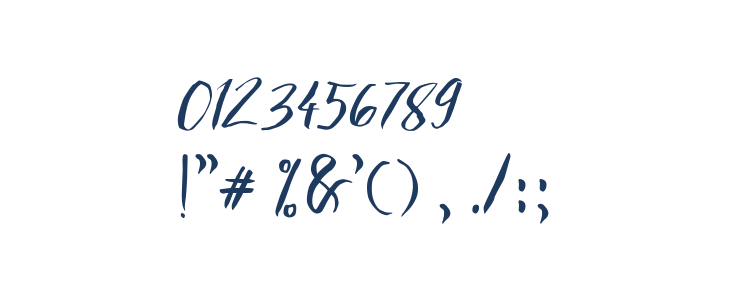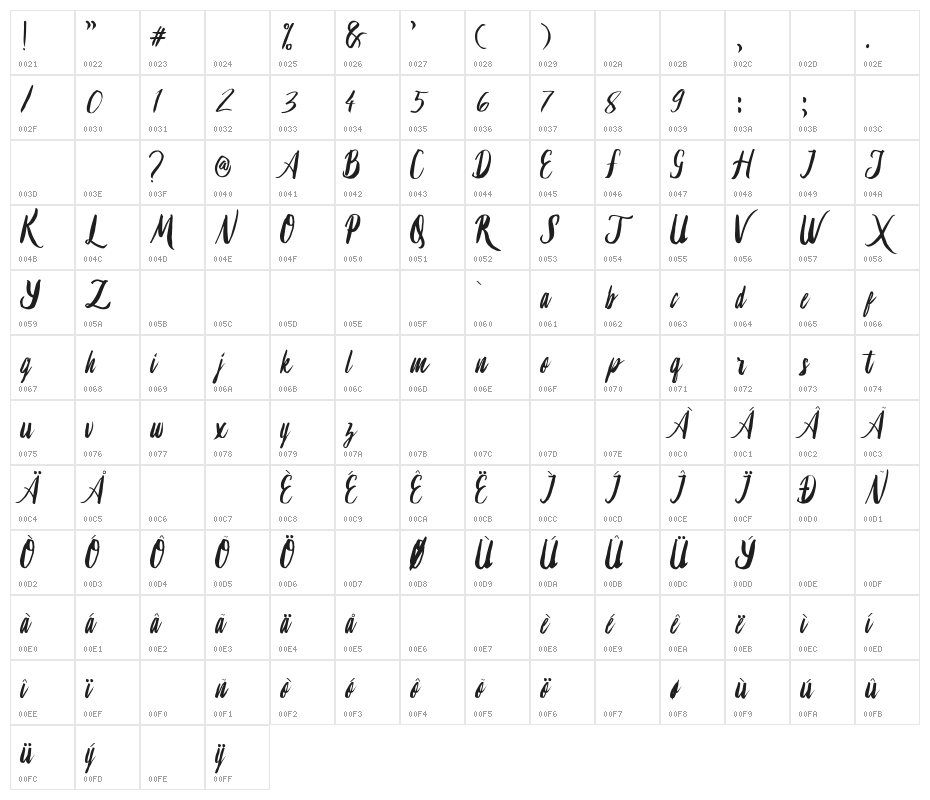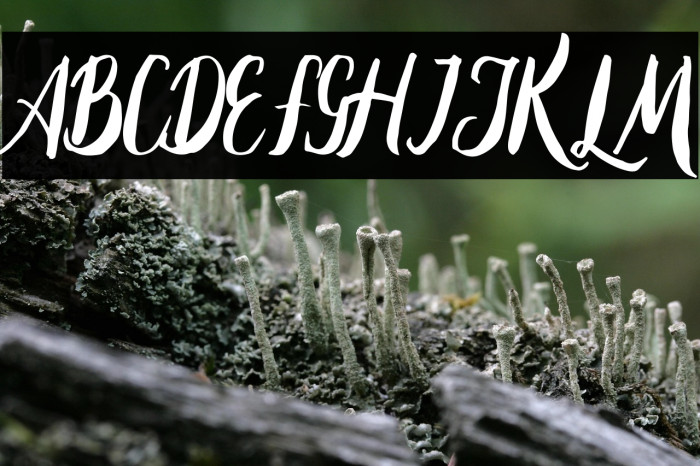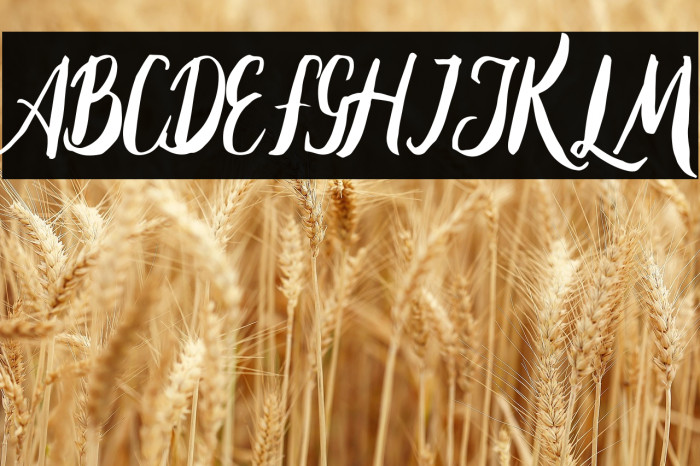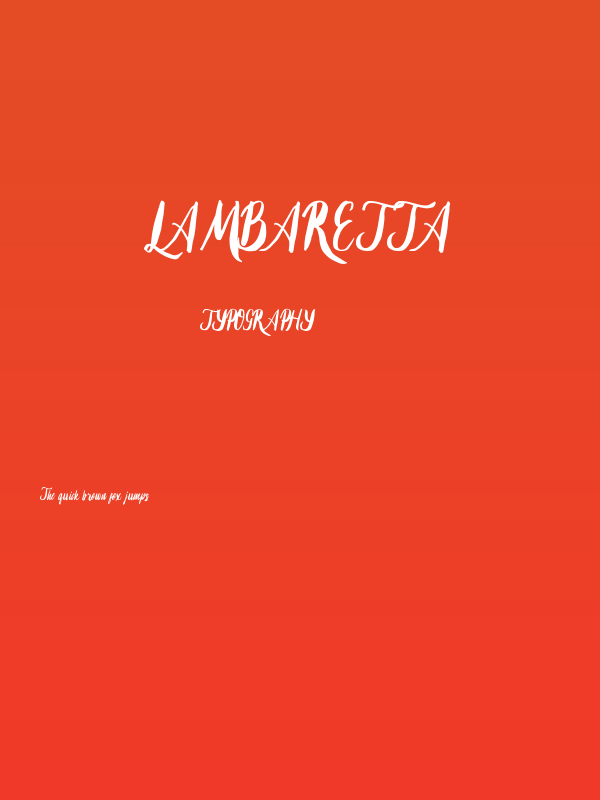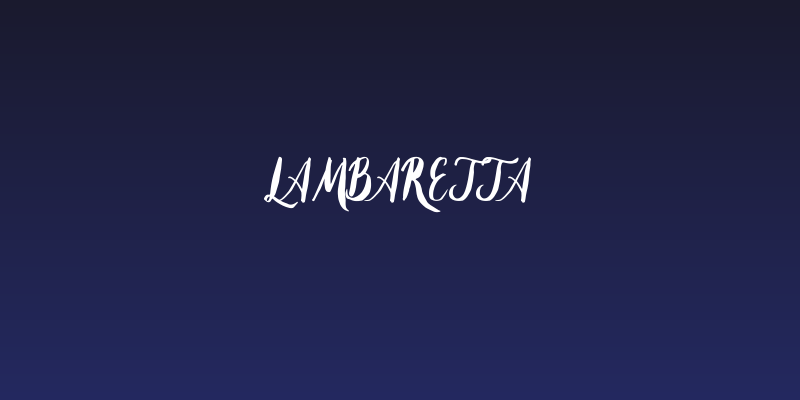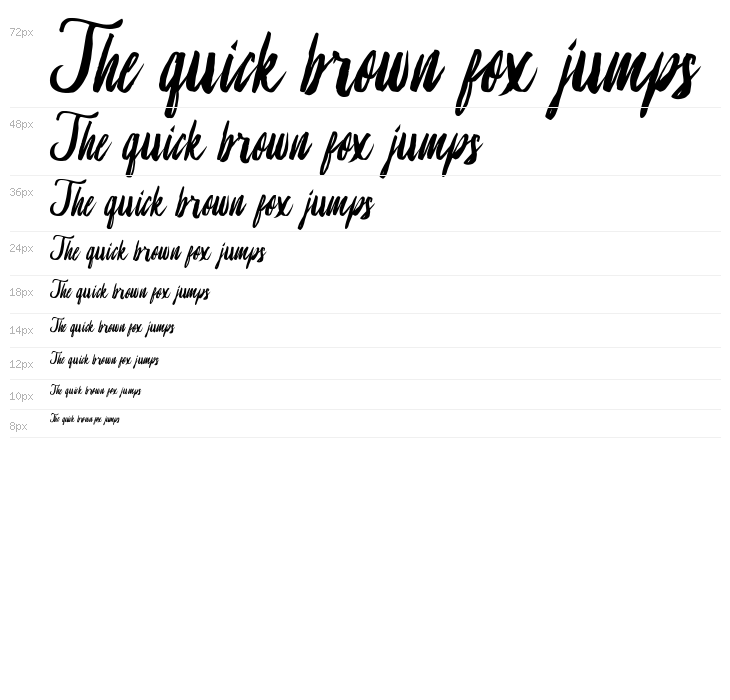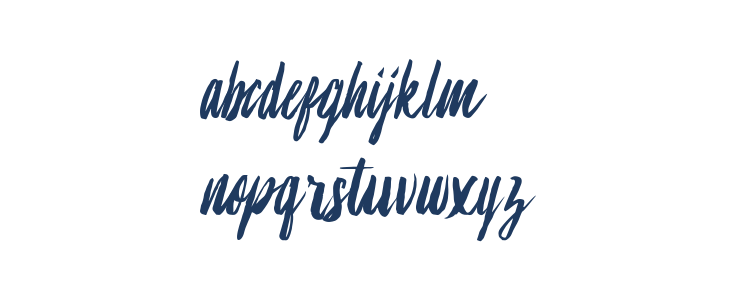
Lambaretta Font
Lambaretta Description
This font features a dynamic and expressive script style, characterized by its fluid and cursive letterforms. The strokes are bold and sweeping, with a noticeable slant that adds a sense of movement and elegance. The uppercase letters are particularly striking, with exaggerated loops and curves that give them a dramatic flair. The lowercase letters maintain a consistent flow, complementing the uppercase with their graceful connections. Numbers and special characters are designed with the same attention to detail, ensuring a cohesive look across all elements. This font's artistic and lively appearance makes it ideal for creative and decorative applications.